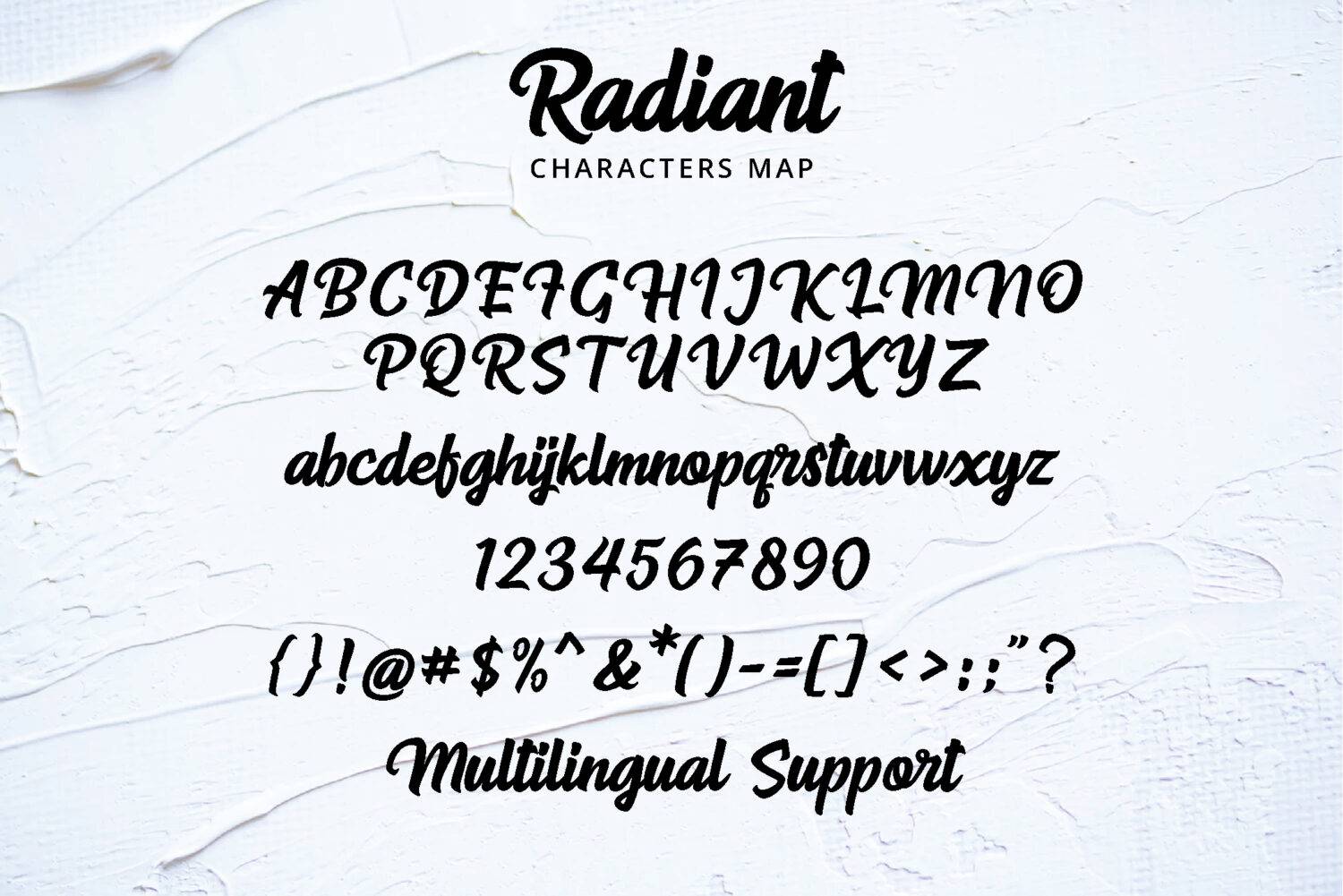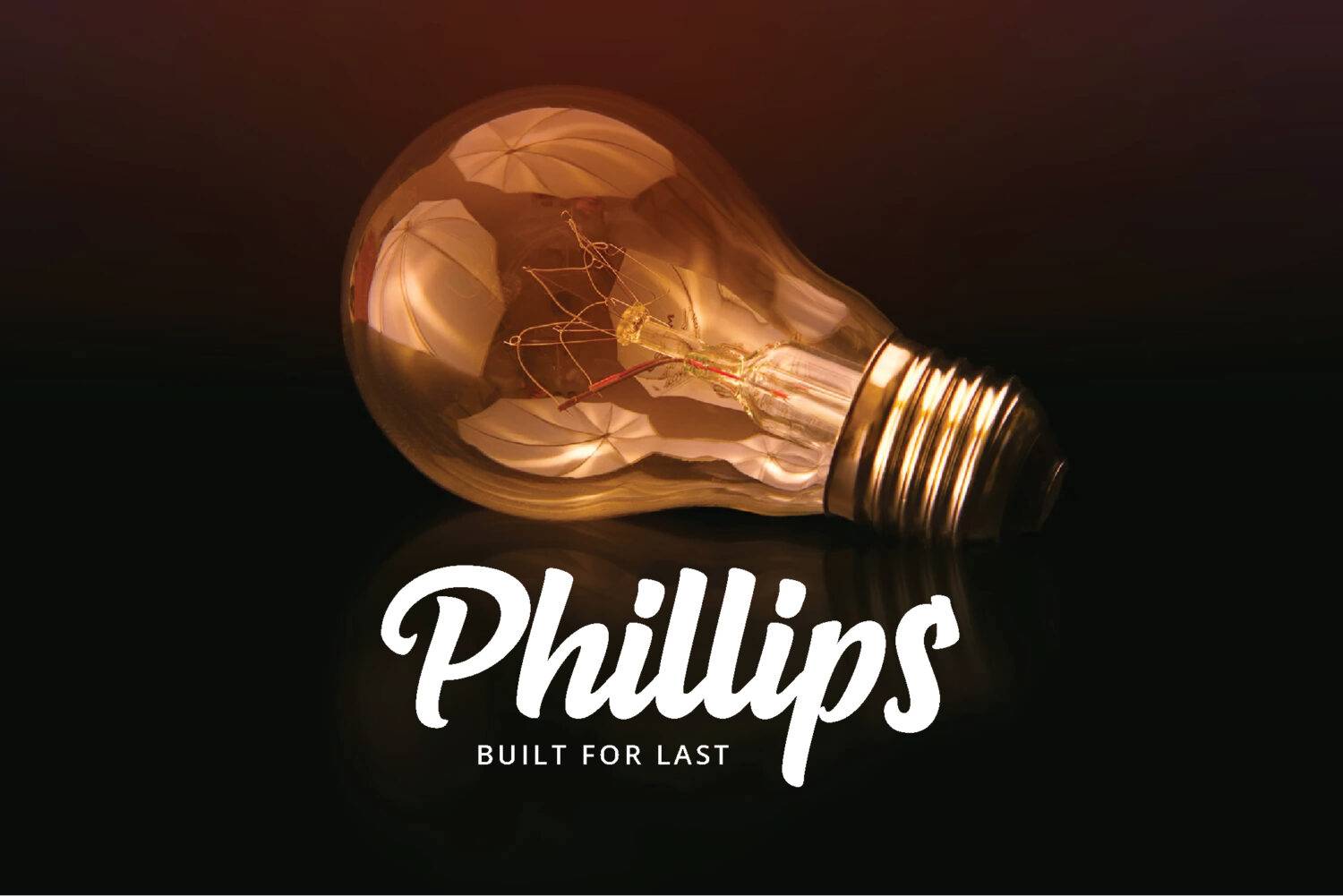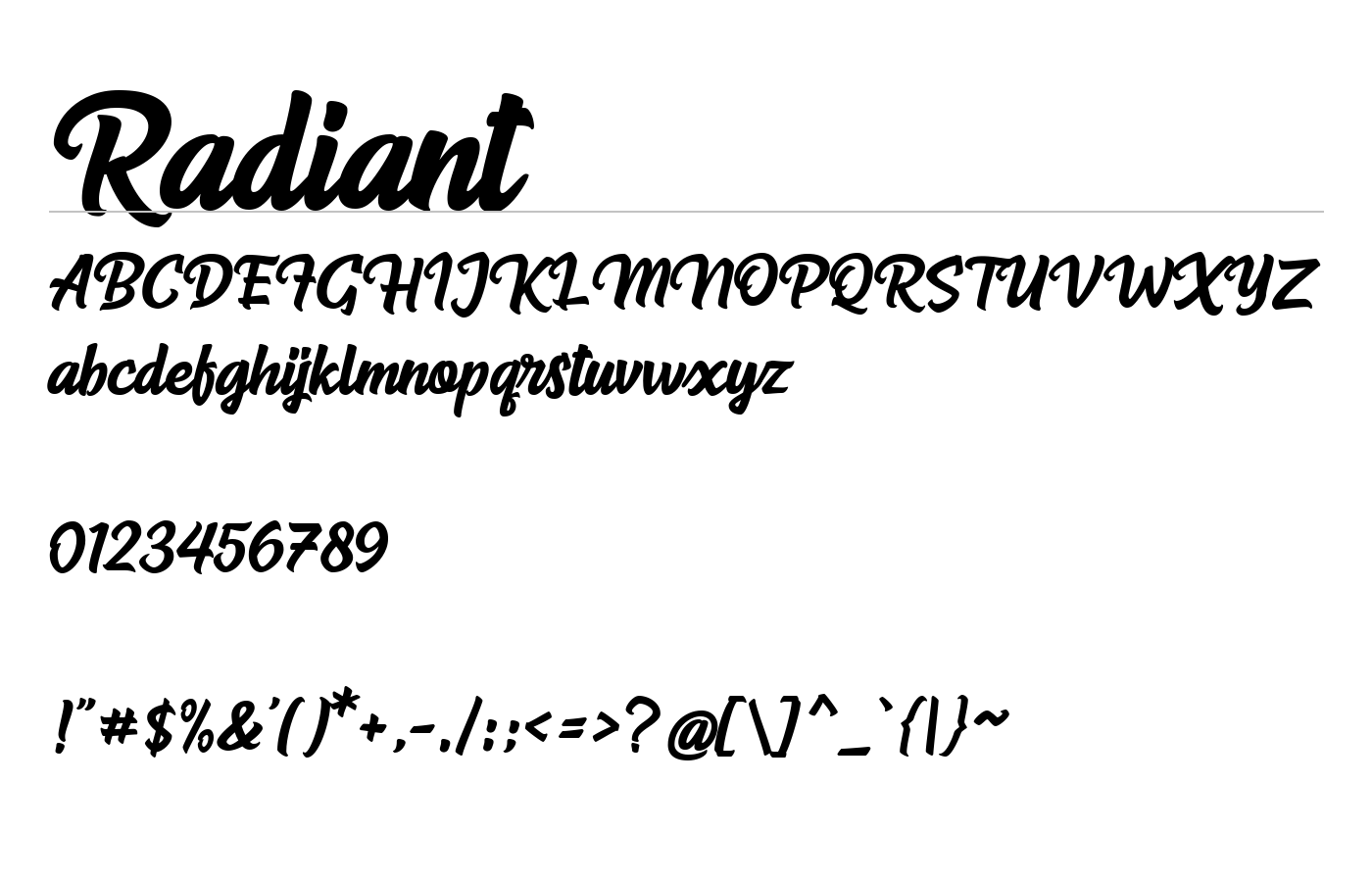
Radiant Iconic is a bold, script-style font that combines a friendly, handwritten feel with strong, fluid strokes and moderate contrast, giving it an energetic and approachable personality. Its smooth curves and distinct letterforms make it ideal for branding, logos, and headlines where a lively, charismatic touch is desired. This font works well for creative projects seeking a modern yet warm and inviting look, such as fashion branding, social media graphics, and packaging.
Radiant Iconic Script Font
About Radiant Iconic Script Font
| Font family | Radiant Iconic Script Font |
| Release date | 2019-05-15 |
| Designer | Andhi Yulianto |